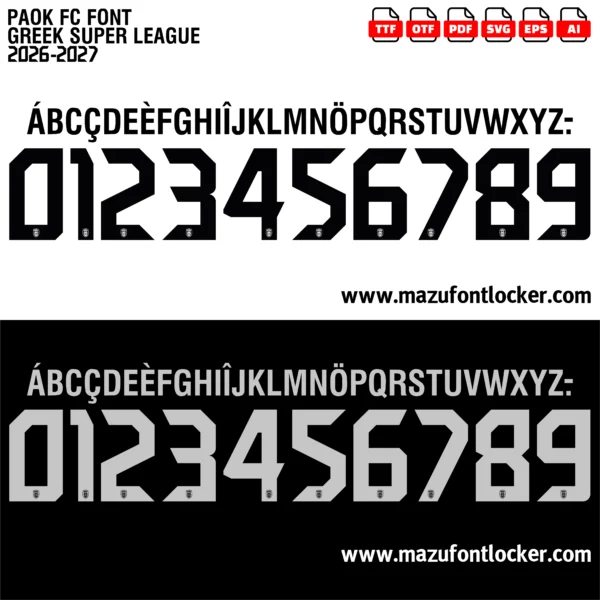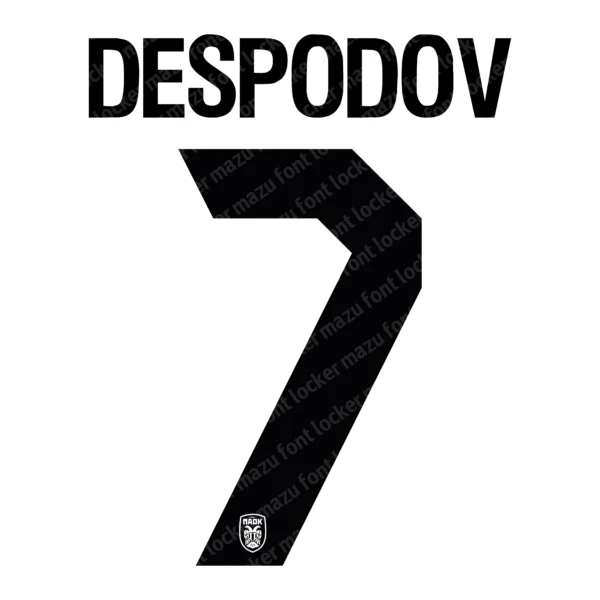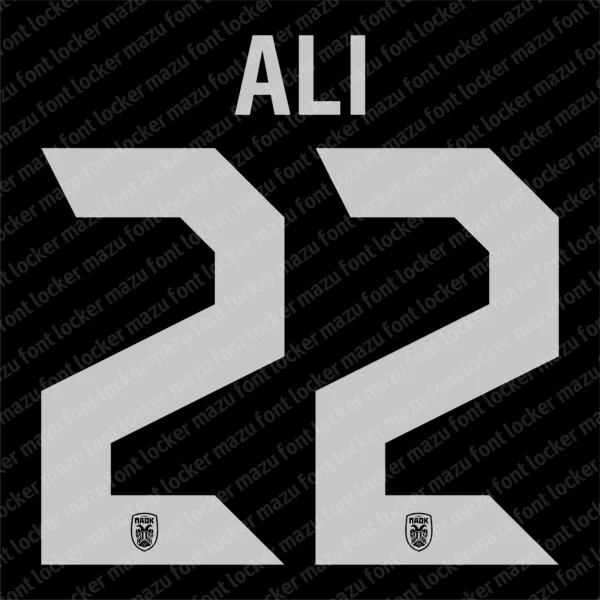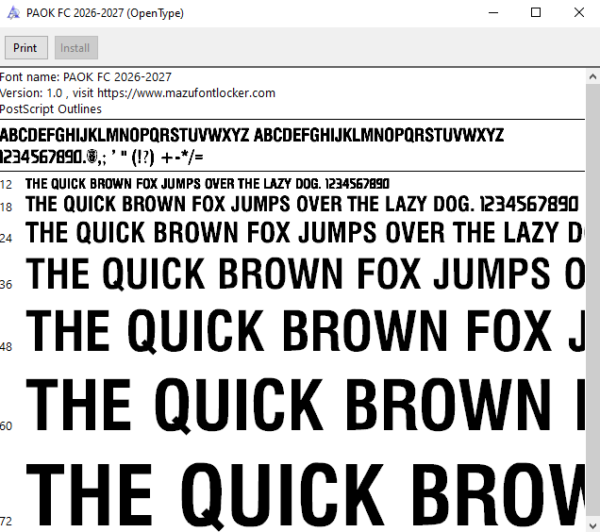
PAOK FC 2026-2027 Font Vector – Stunning Double-Headed Eagle Masterpiece
This font captures the razor-sharp, thunderous lettering that embodies PAOK’s proud club identity, rich Greek football heritage, iconic black-and-white tradition, and relentless winning mentality — delivering premium quality and explosive energy for jersey mockups, football graphics, sports branding, and fan creations.
PAOK FC 2026-2027 Font Vector – Iconic Dikefalos Heritage Typeface
The PAOK FC 2026-2027 Font Vector is a premium typeface that accurately recreates the official match lettering worn by PAOK FC during the 2026-2027 season. This high-quality vector font kit captures the bold, clean, and instantly recognizable typography that perfectly complements the club’s iconic black and white identity.
Designed for professional designers, football enthusiasts, and passionate PAOK supporters, the PAOK FC 2026-2027 Font Vector delivers exceptional authenticity for creating realistic jersey mockups, football merchandise, social media graphics, match posters, and custom fan artwork. Every character has been carefully recreated to match the powerful and precise visual style of one of Greece’s most successful and historic football clubs.
Why Choose PAOK FC 2026-2027 Font Vector
This font stands out thanks to its precise vector construction and authentic club-inspired styling. Every letter and numeral has been meticulously recreated to match the official shirt lettering used throughout the 2026-2027 Super League Greece and European football campaigns. Whether you’re producing professional kit templates or creating eye-catching football content, the PAOK FC 2026-2027 Font Vector delivers a genuine match-ready appearance inspired by the proud identity of the Thessaloniki giants.
The lettering featured in the PAOK FC 2026-2027 Font Vector combines clean geometric lines with powerful modern proportions. The result is a premium and highly readable typeface that reflects PAOK’s winning mentality, attacking football, precision, and proud Dikefalos heritage.
- Complete uppercase A–Z alphabet and numbers 0–9 in authentic PAOK FC 2026-2027 style
- Special PAOK FC badge glyph – Press the “:” (Colon) key to insert the club crest
- Recreate the distinctive look of PAOK player names and squad numbers for creative projects
PAOK FC 2026-2027 Season
Known for its rich history, passionate supporters, and commitment to attacking football, PAOK remains one of Greece’s most celebrated clubs. The PAOK FC 2026-2027 Font Vector is designed to capture the bold visual character associated with the club’s modern football identity.
The PAOK FC 2026-2027 Font Vector is an independently designed typeface package inspired by the official shirt lettering associated with the 2026-2027 season. It has been carefully recreated for football enthusiasts, graphic designers, collectors, and creators producing custom jersey concepts, football artwork, and fan-made projects.